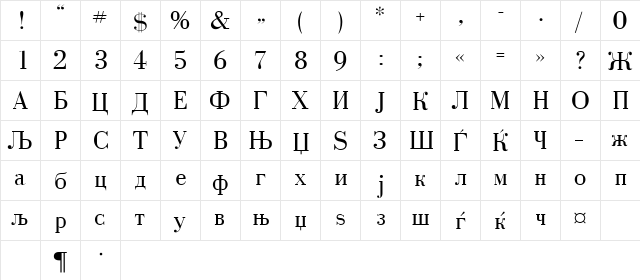
M_Bodoni Normal
Design Context for M_Bodoni Typeface
M_Bodoni offers clean, dependable letterforms without strong stylistic allegiance, making it a practical choice for designers who need flexibility.